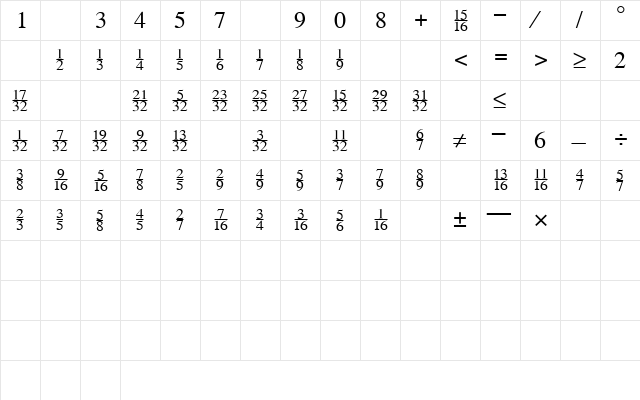
SeriFractionsVertical Plain
Design Context for SeriFractionsVertical Typeface
SeriFractionsVertical carries the refined structure of traditional serif typography, with bracketed terminals and considered proportions that communicate credibility and craft.
Pro Tip: Use SeriFractionsVertical for editorial body copy and considered headline work. Pair with a neutral sans for UI elements or captions to create a classic hierarchy.